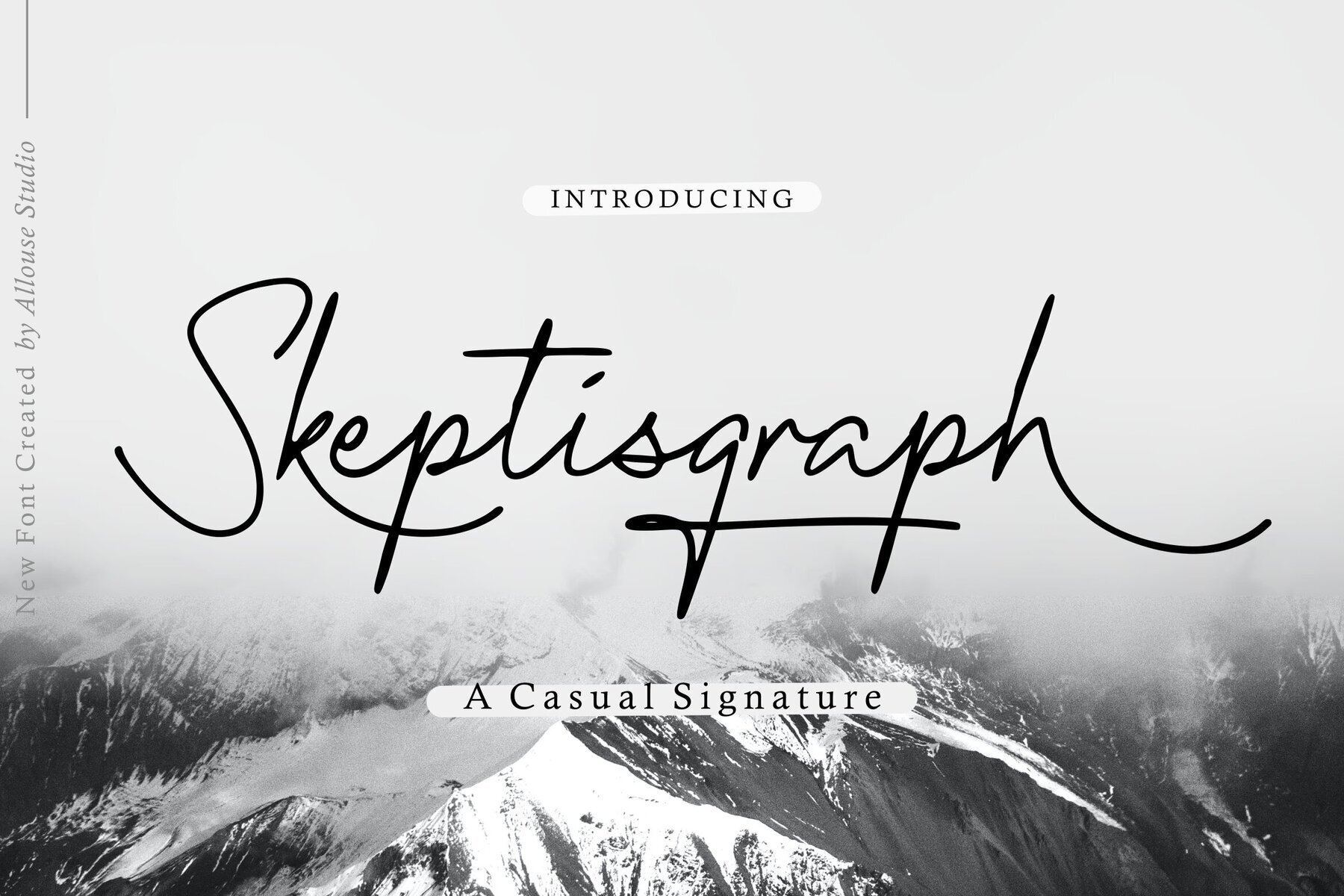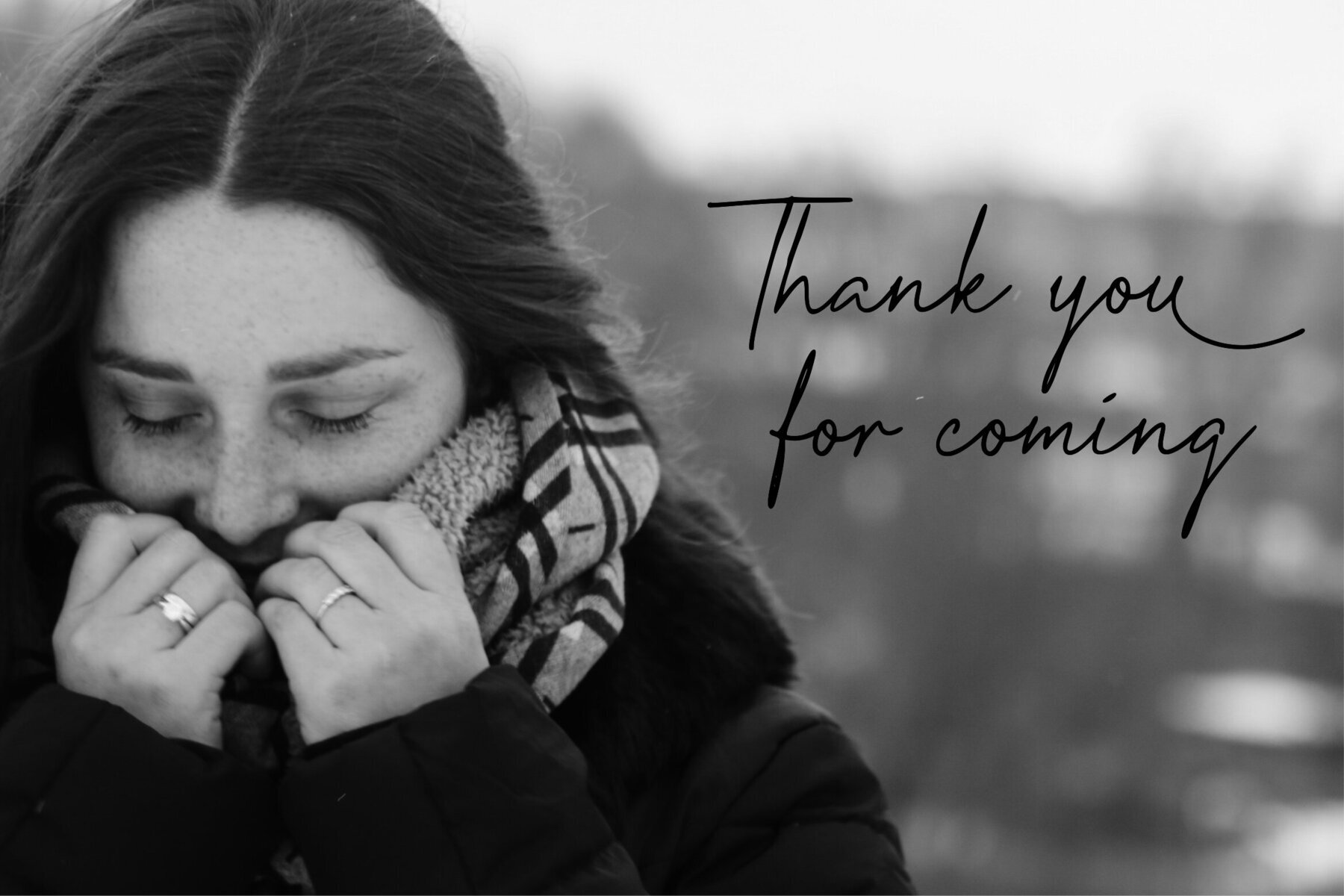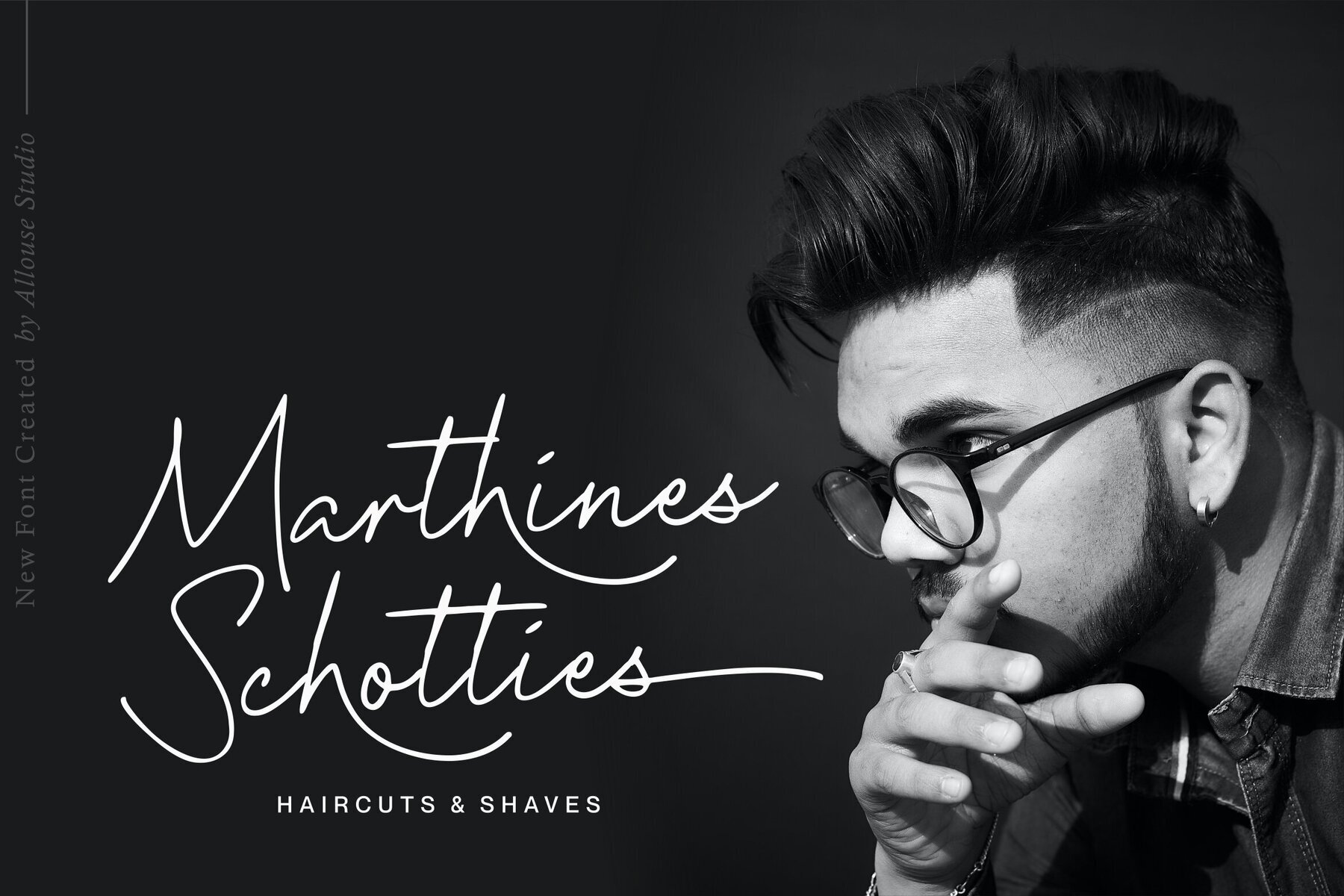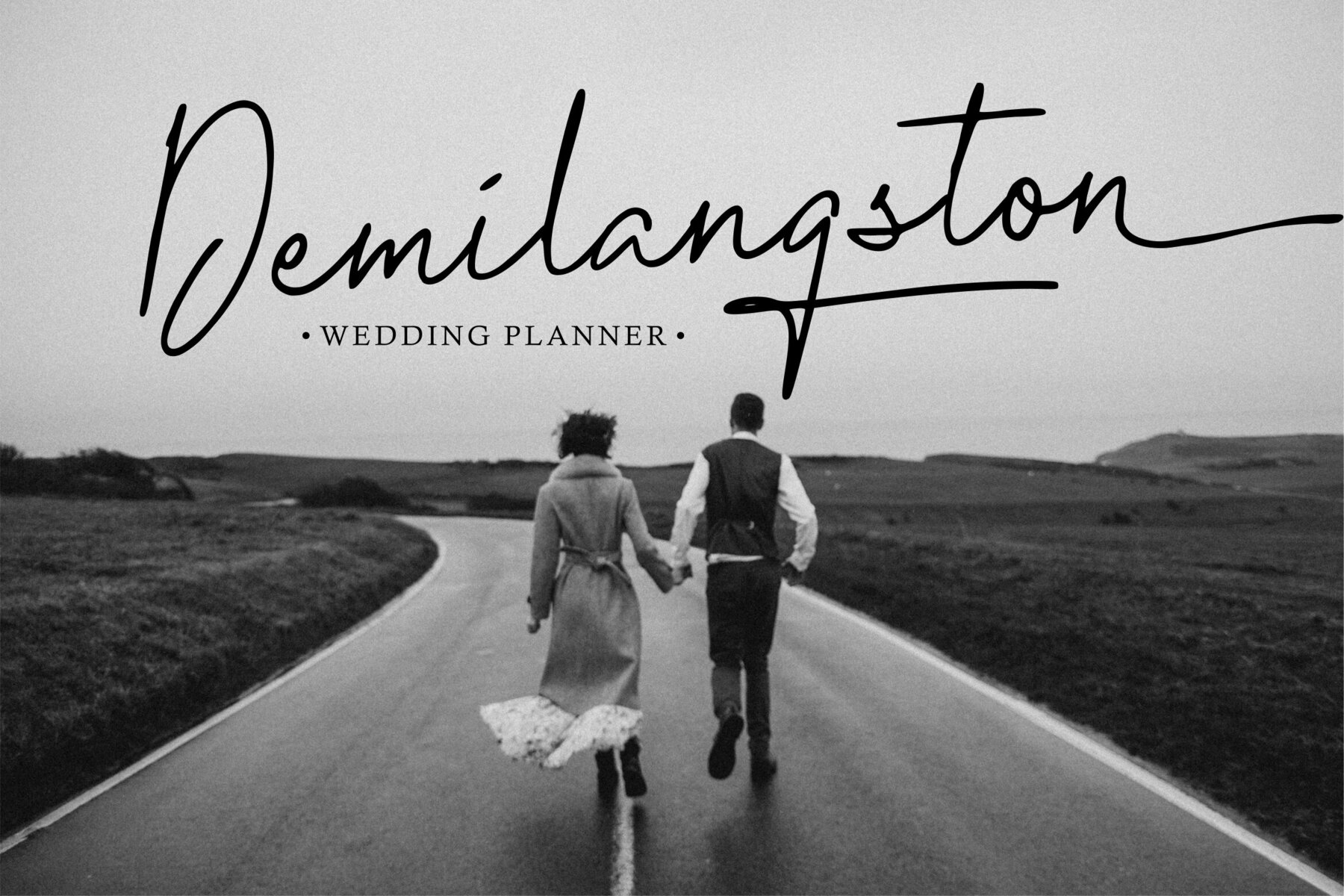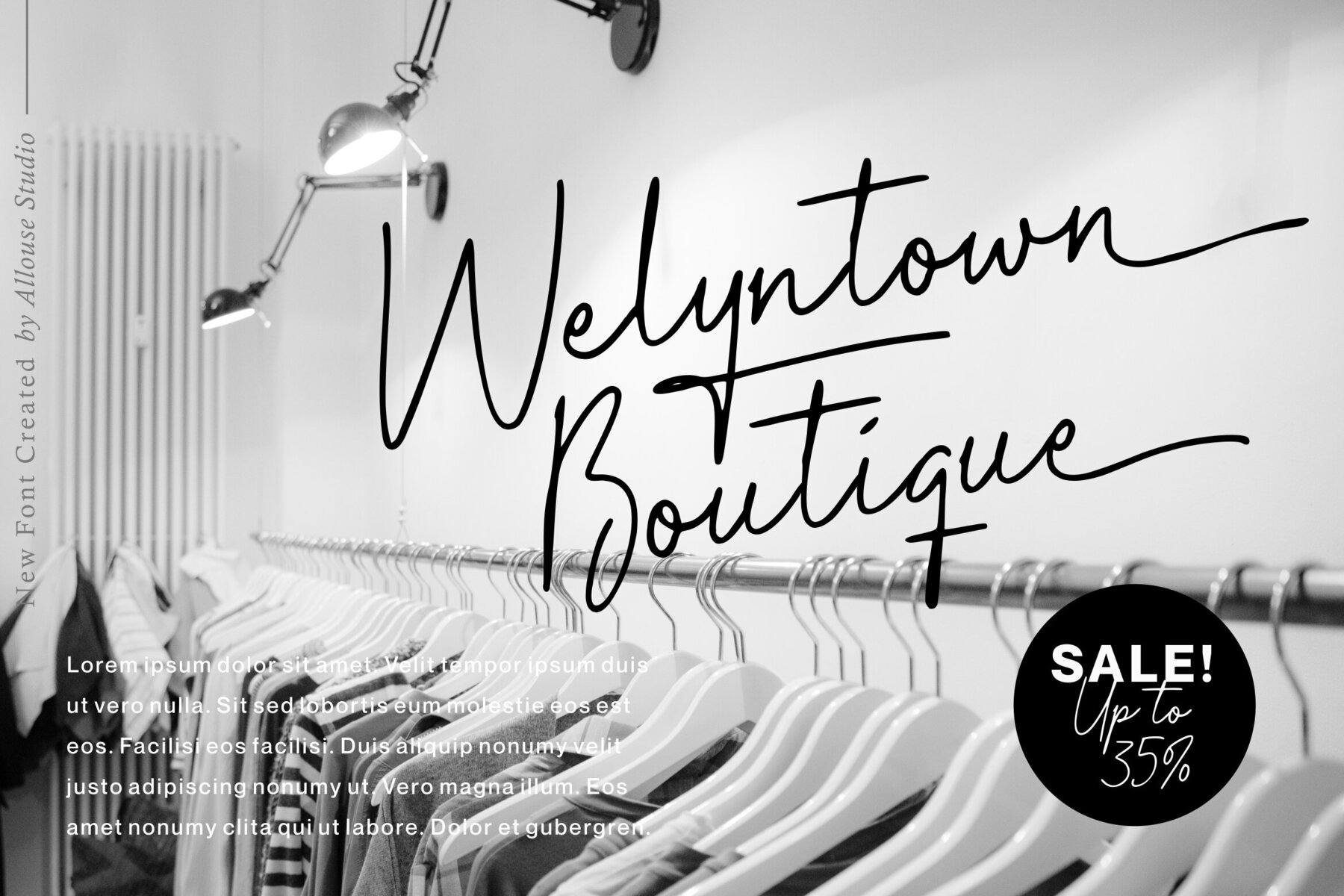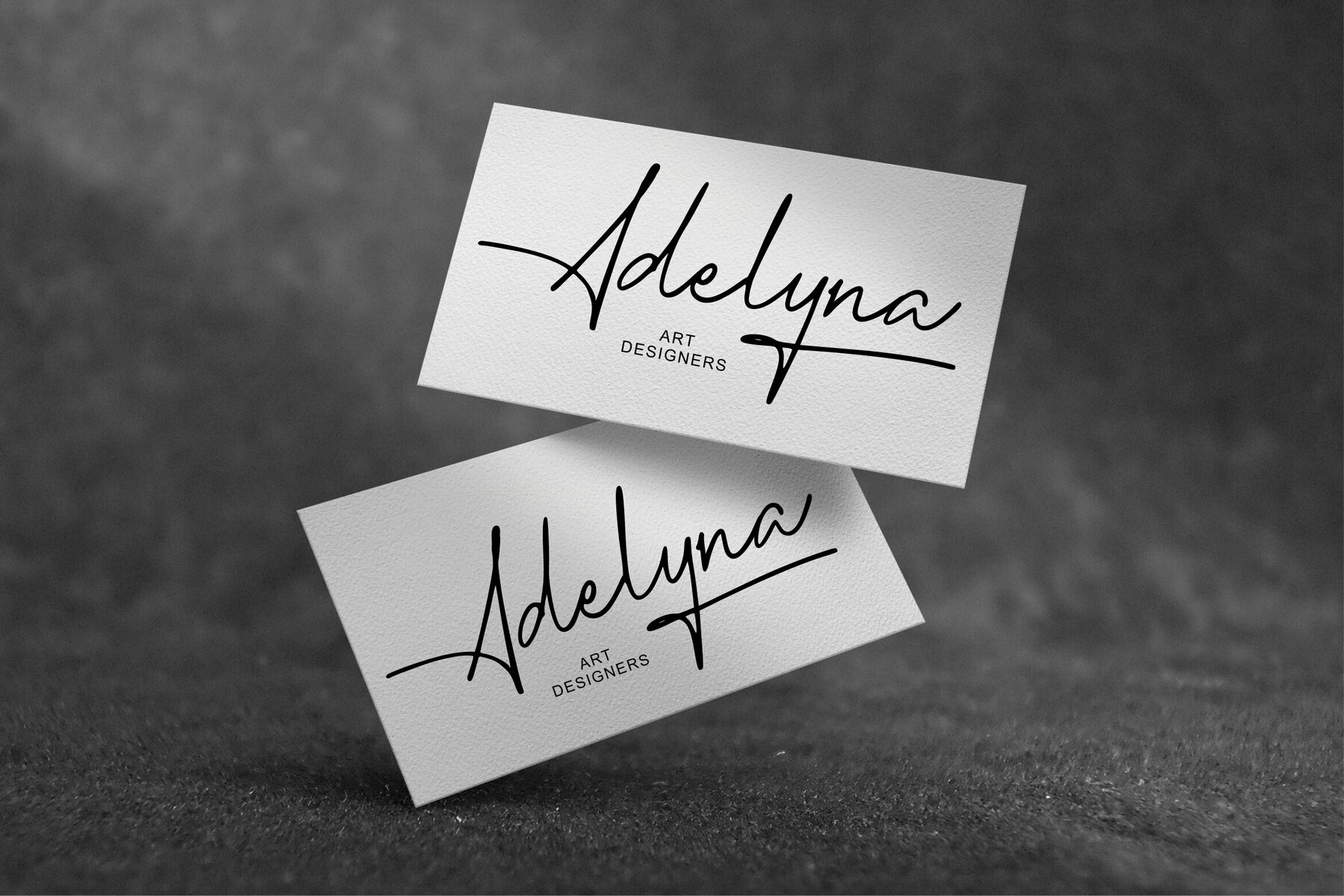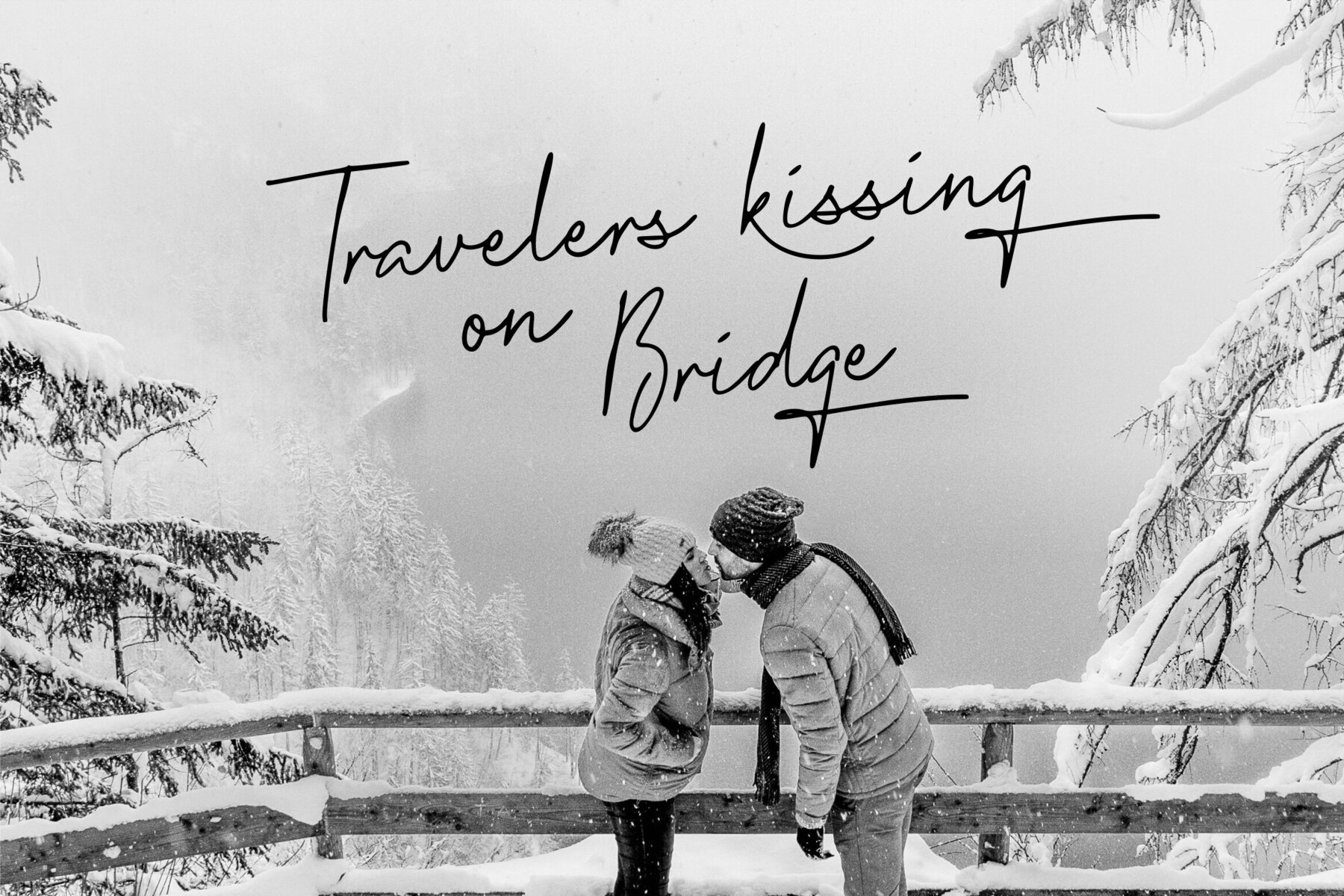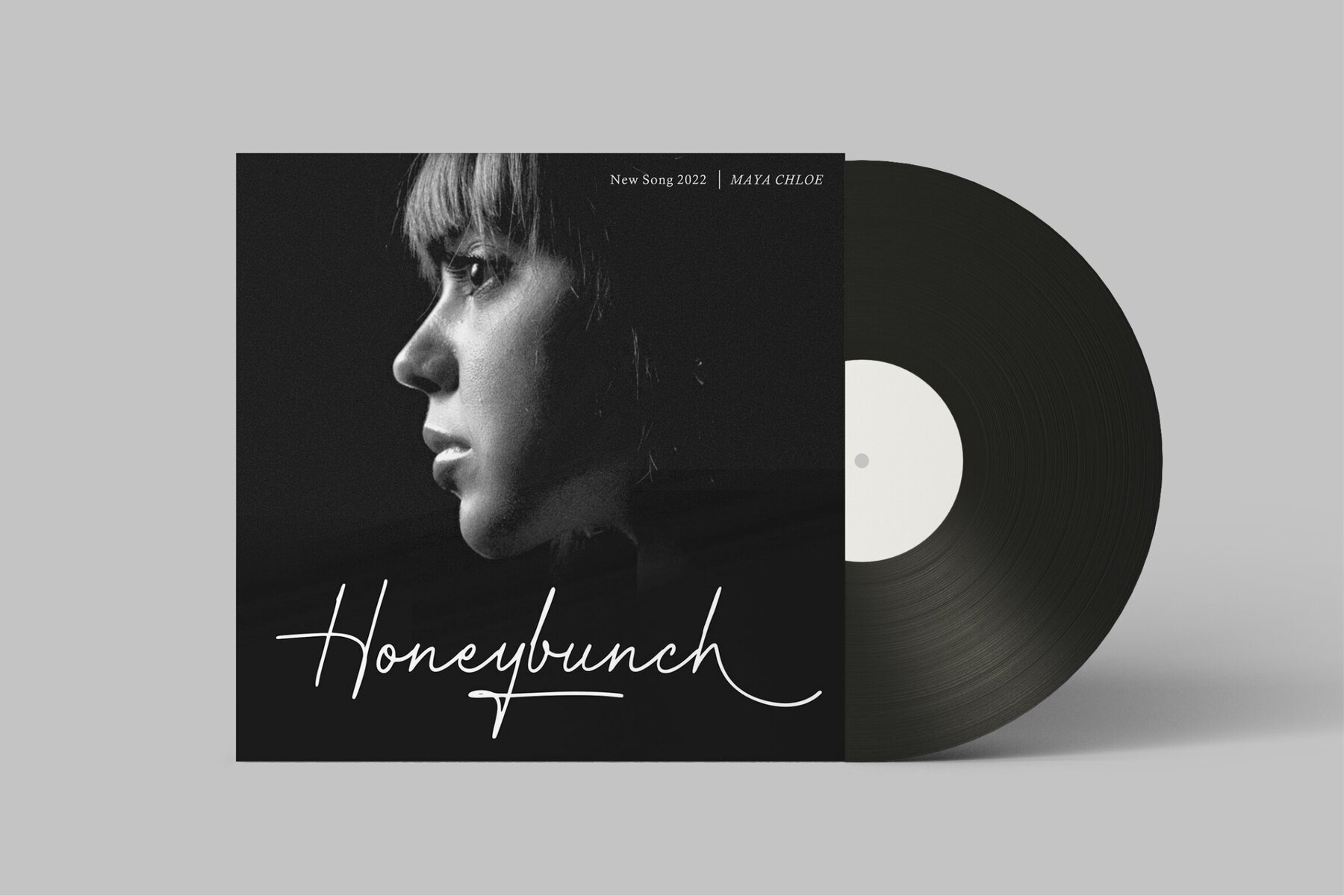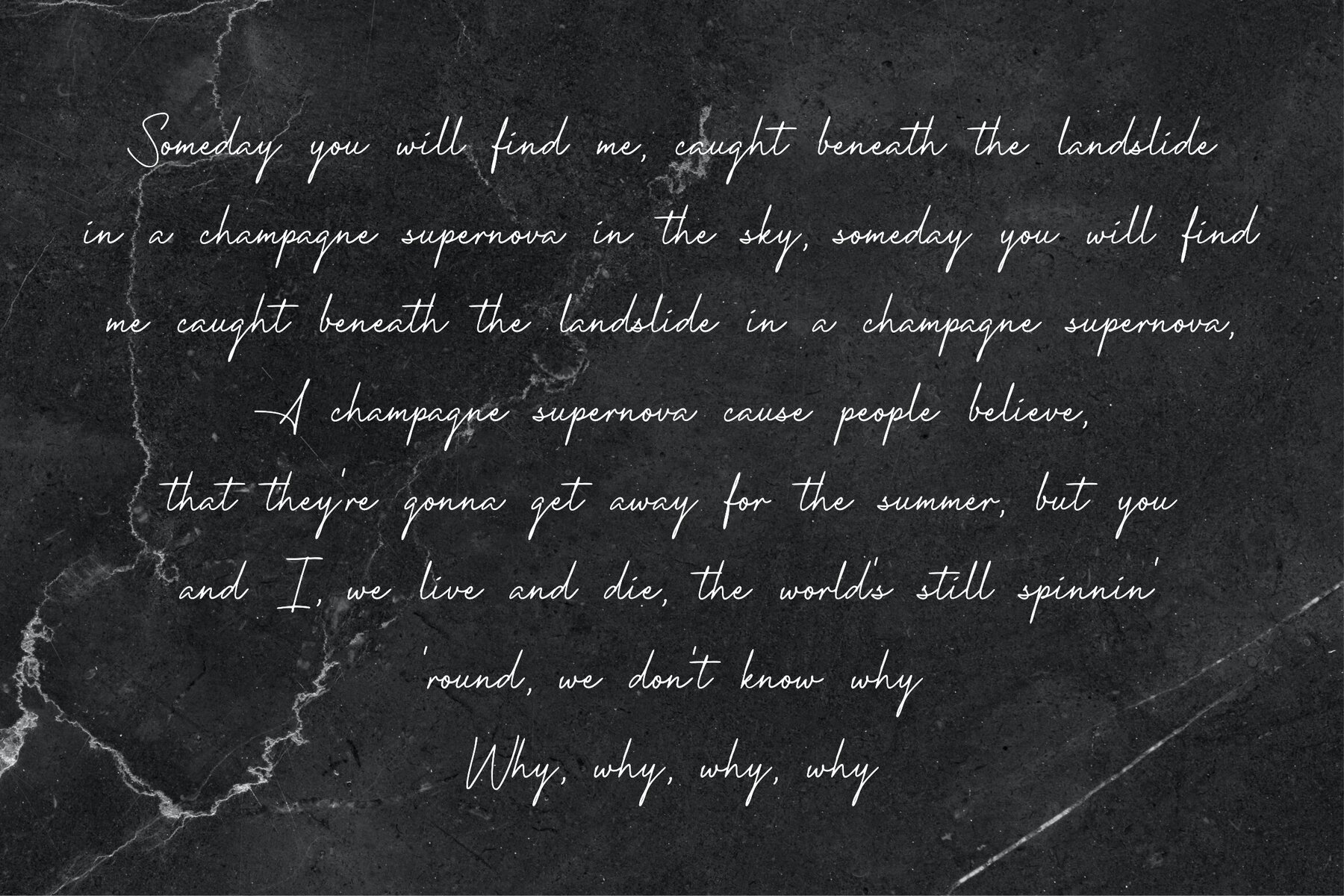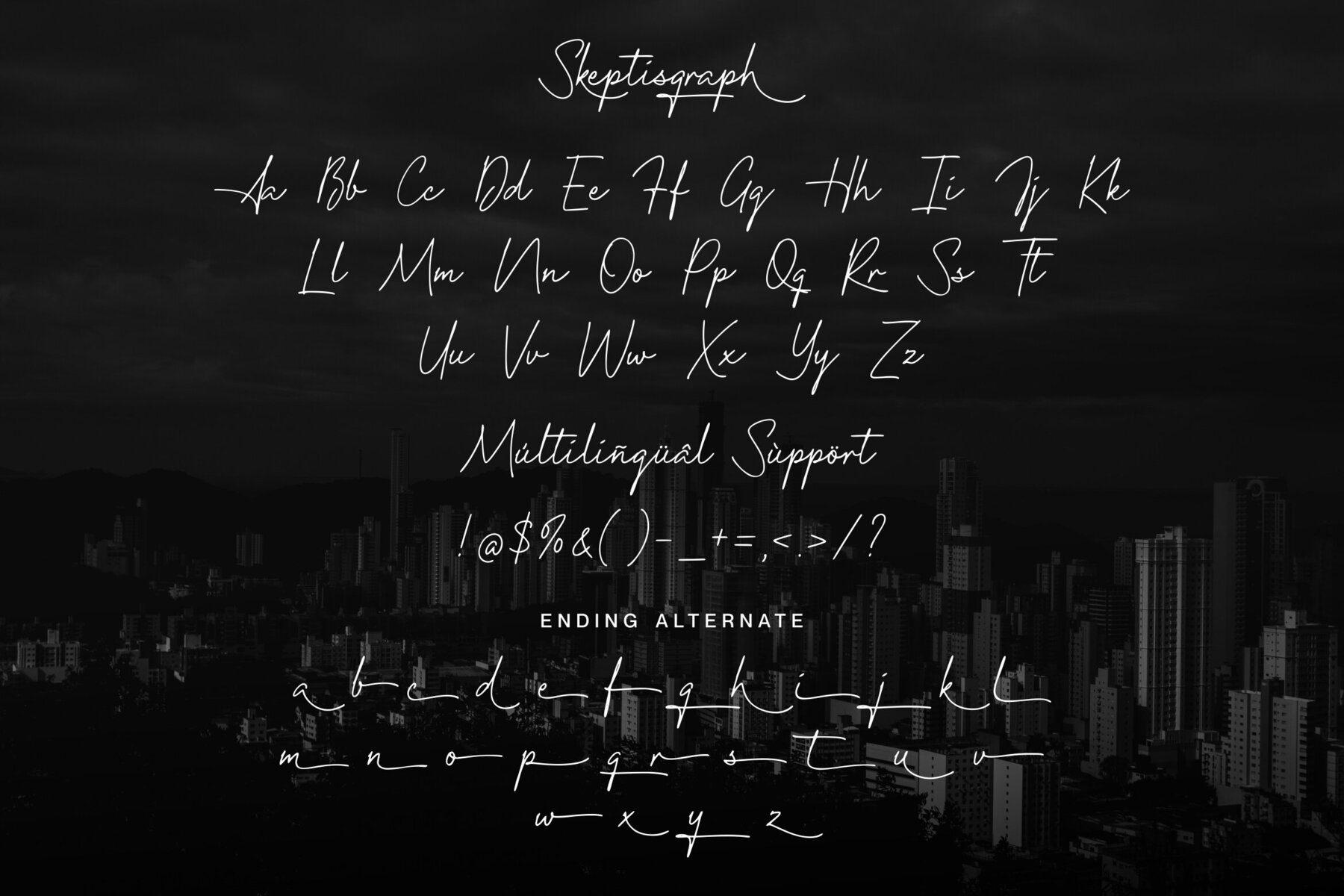
Skeptisgraph Font
Skeptisgraph
Skeptisgraph is a typeface designed with versatility in mind, making it ideal for a wide range of branding applications. Whether you're developing product packaging, crafting project designs, or adding expressiveness to your digital content, Skeptisgraph offers the flexibility and style you need. Its adaptability makes it suitable for everything from social media posts to wedding invitations.Skeptisgraph: A Typeface for Versatile Branding